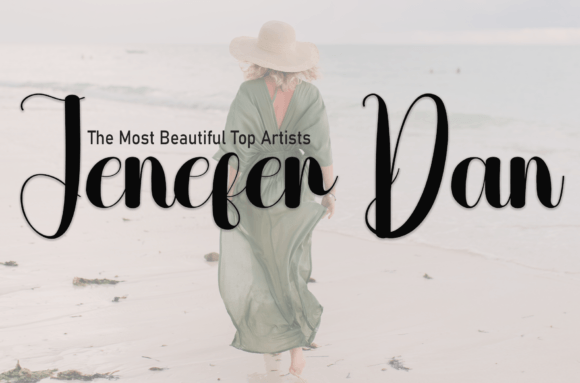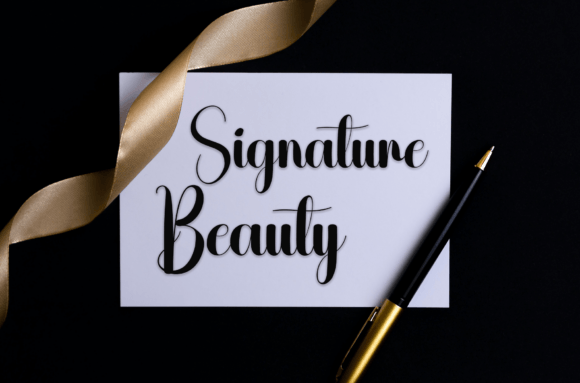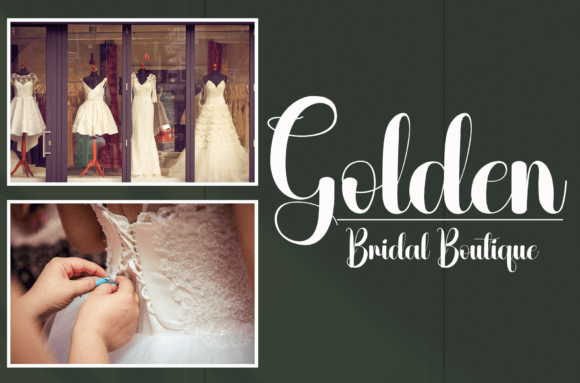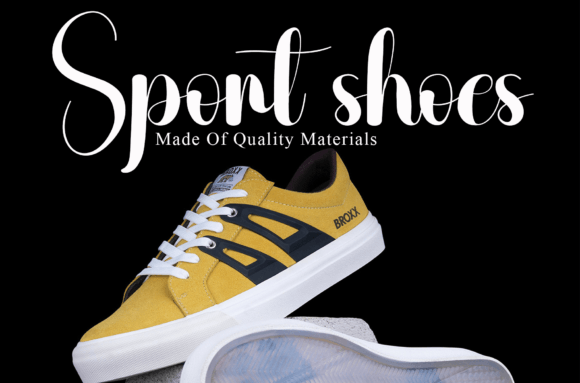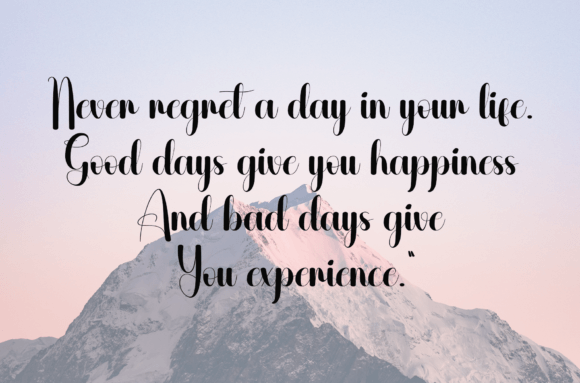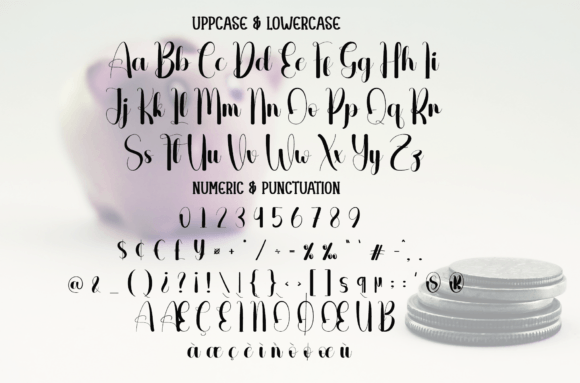
Introduction to Save Font
Have you ever been working on a creative project and needed just the right font to bring it to life? For many designers, that perfect font can be the difference between a great design and an amazing one. It’s a moment of pure joy when you stumble upon a font that perfectly captures the essence of your project. And that’s exactly what happened when I discovered the Save Font.
This sweet and friendly handwritten font is a game-changer for any design project that needs a fun and personal touch. With its high-quality design and transparent background, the Save Font is a valuable resource for any designer looking to add a unique element to their work.
Whether you’re creating wedding invitations, cards, or any other design that needs a little extra love, the Save Font is a free download that’s sure to impress. In this article, we’ll take a closer look at the Save Font and explore why it’s a must-have for any designer looking to elevate their creative projects.
Honest Review: Save Font
As a designer, I’m always on the lookout for high-quality design resources that can elevate my creative projects. Save Font has caught my attention, and I’m excited to share my honest review.